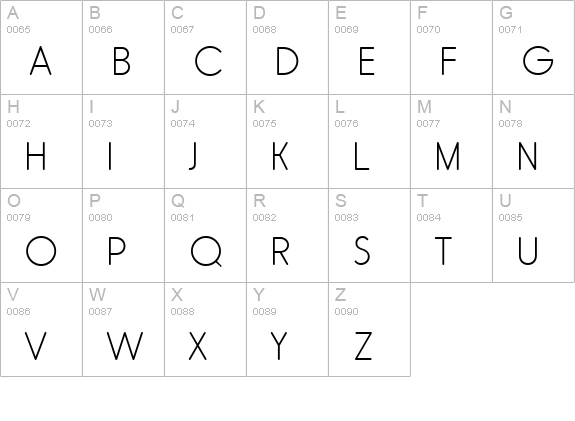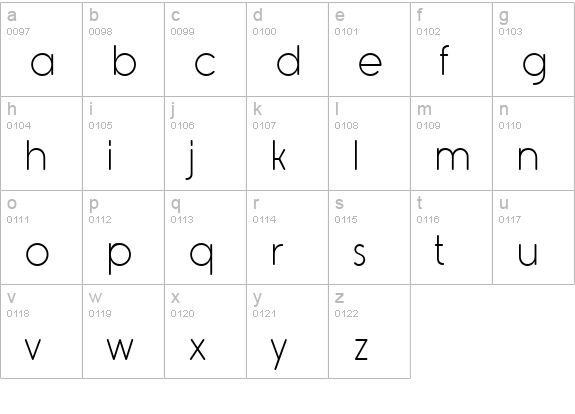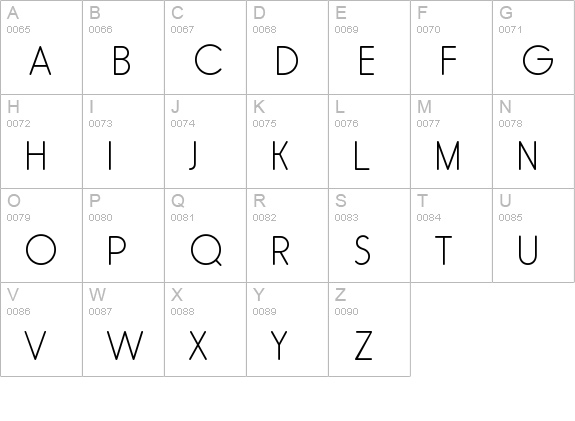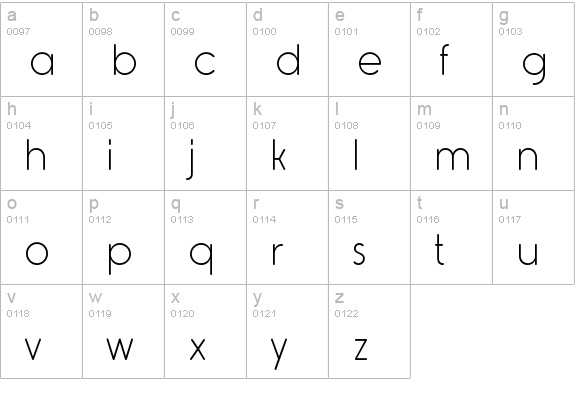
Rimouski Light Font Details
Rimouski Light is a refined, elegant variant in the Rimouski typeface family \xE2\x80\x94 well suited to elegant body text, refined sub-headings, and luxury branding.
Rimouski Light font is a modern and elegant typeface that exudes sophistication and style. With its clean lines and subtle curvature, this font is perfect for adding a touch of class to any design project. The light weight of the font gives it a delicate and airy feel, making it ideal for use in headings, titles, and other display text. One of the best things about Rimouski Light font is that it is completely free to download. You can easily access this stunning font at FontsMarket.com, where you can add it to your collection without any cost. Whether you're working on a website, poster, logo, or any other creative project, Rimouski Light font is sure to elevate your design and make a lasting impression. Download it today and see the difference it can make in your work!